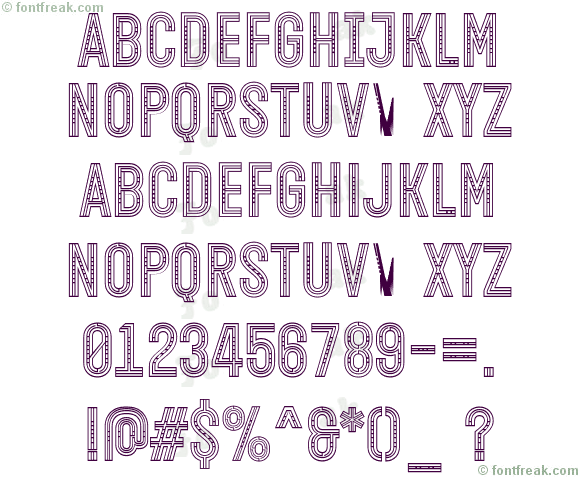
Open Minded
Open Minded Inside
Open Minded by Situjuh Nazara is a striking display font that captures attention with its bold, modern aesthetics. This sans-serif typeface features a unique blend of playful and structured elements, making it versatile for various design projects. The font exhibits a consistent stroke weight combined with a high level of contrast, giving each character a dynamic presence. Its generous spacing enhances readability, ensuring that the text remains clear and engaging across different applications.
The visual characteristics of Open Minded include quirky, rounded edges and an open structure that conveys a sense of approachability and creativity. Decorative elements, such as line details within the characters, add a touch of personality that sets this font apart from more conventional typefaces. This distinctive style makes Open Minded ideal for use cases such as wedding invitations, where a modern yet elegant touch is desired. It is also well-suited for movie posters, allowing titles to stand out with flair. Restaurant menus can benefit from its unique character, making dishes more appealing to patrons. Additionally, content creators looking to add personality to social media graphics will find this font an excellent choice.
What makes Open Minded particularly noteworthy is its ability to blend creativity with functionality. This font not only stands out visually but also enhances the overall message of any project, making it a valuable addition to any designer's toolkit. For those interested in elevating their designs, the Open Minded font free download offers an opportunity to explore this unique typeface.